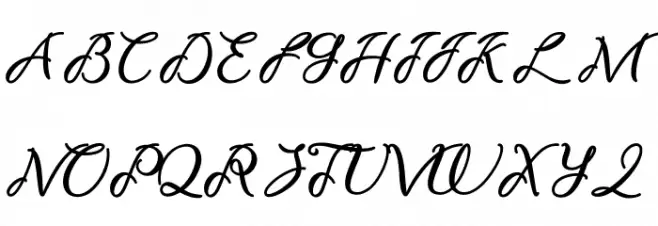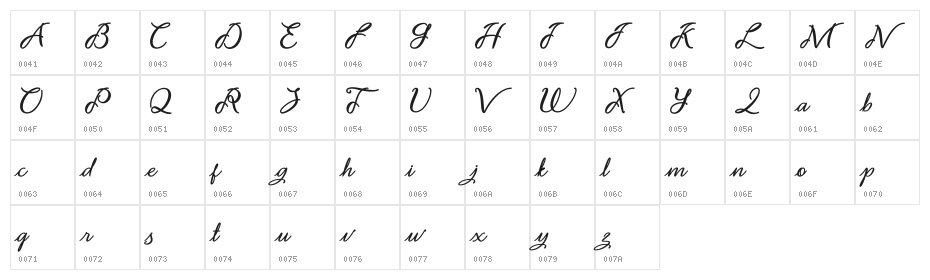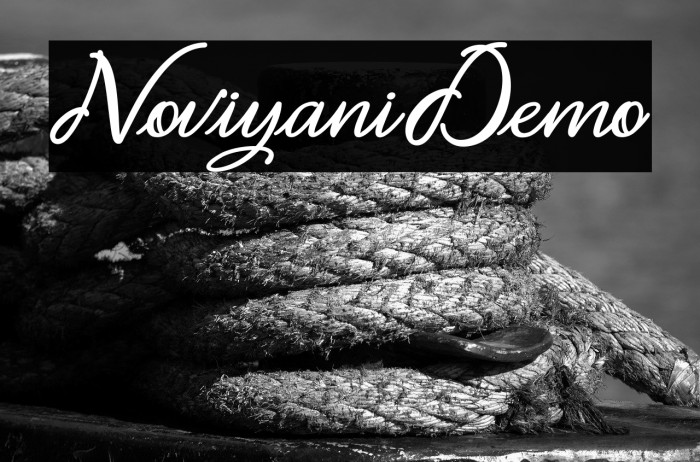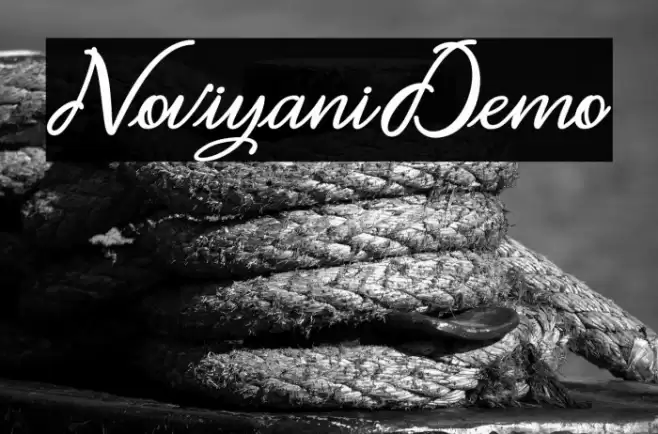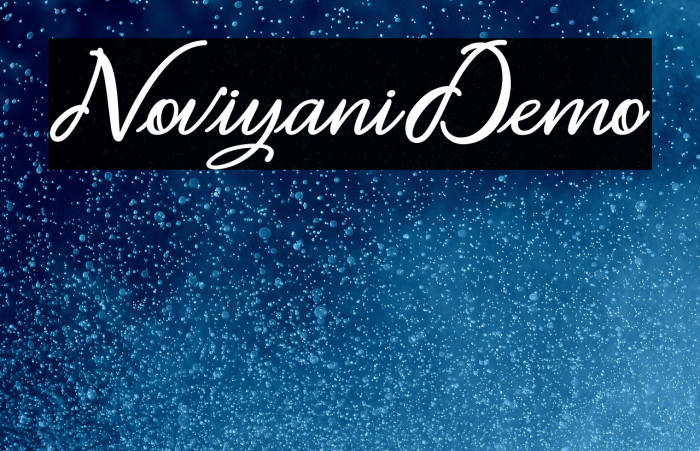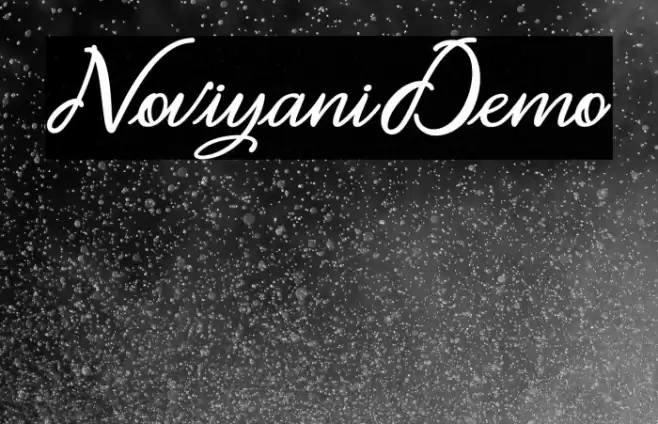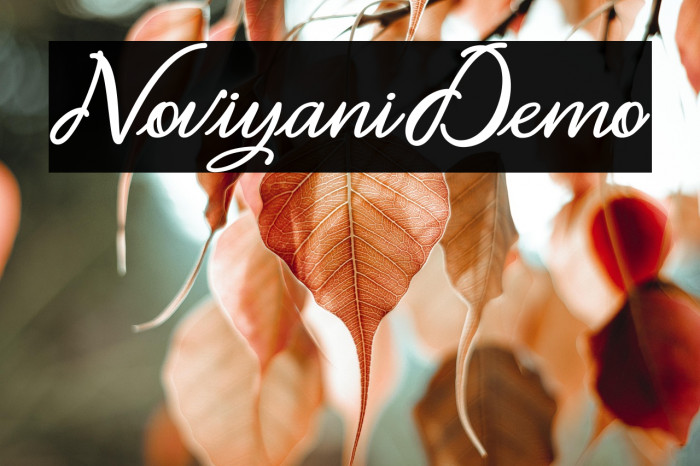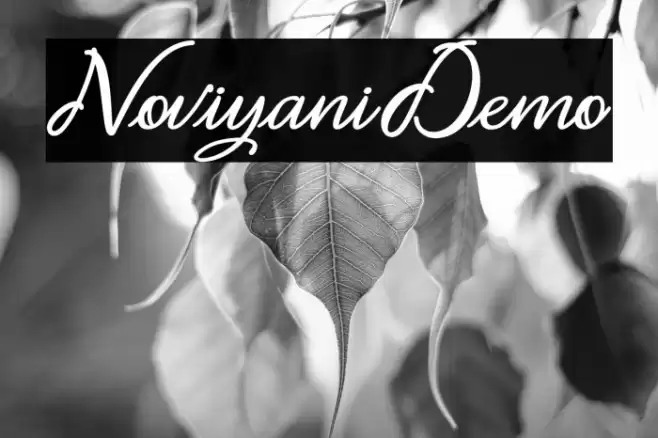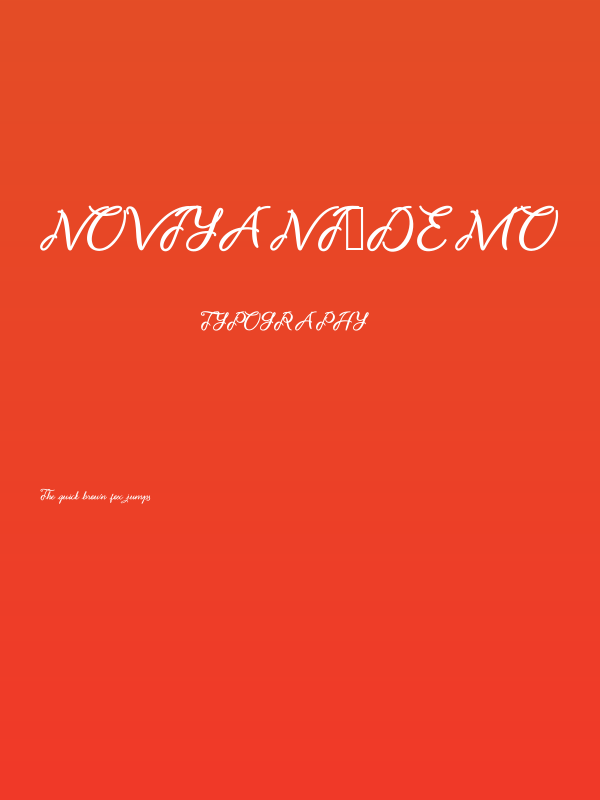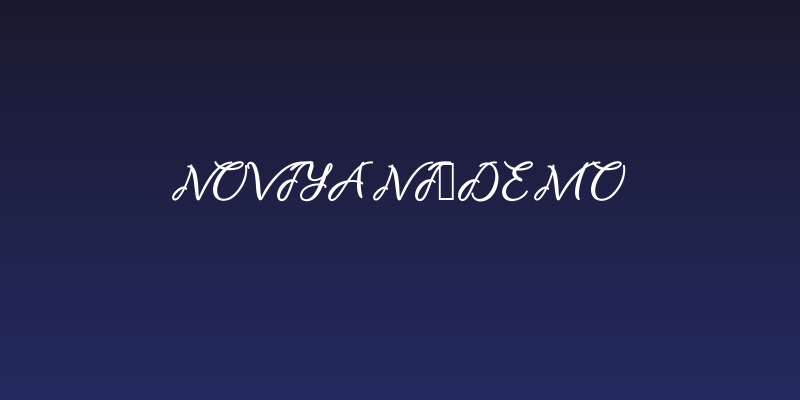
Noviyani_Demo Font
Noviyani_Demo Description
This font exudes elegance and sophistication with its flowing, cursive style. Each letter is intricately designed with smooth curves and delicate loops, creating a sense of fluidity and grace. The uppercase letters are particularly ornate, featuring elaborate swashes that extend beyond the baseline, adding a touch of drama and flair. The lowercase letters maintain a consistent rhythm, with gentle connections between each character that enhance readability while preserving the script's artistic nature. This font is perfect for projects that require a touch of class and refinement, such as wedding invitations, formal event programs, or luxury branding. Its timeless appeal makes it versatile for both modern and traditional designs.
| Proposed Projects | Ideal for wedding invitations, formal event programs, luxury branding, and elegant stationery. |